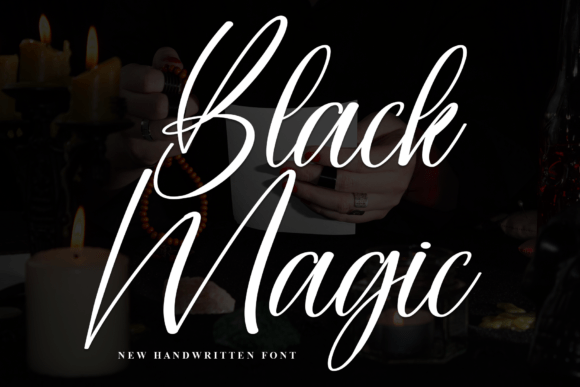
The Enchanting World of Black Magic Font
Have you ever been in the middle of a design project, and suddenly, you’re stuck on finding the perfect font? I recall a recent experience where I was working on a wedding invitation design, and my client requested a font that exuded elegance, sophistication, and a touch of magic. That’s when I stumbled upon the Black Magic font, a modern handwritten script font that has since become a staple in my design toolkit.
A First Impression: What Makes Black Magic Special
Black Magic is a stunning script font that masterfully blends flowing elegance with a bold, enchanting charm. Its tall, sweeping ascenders and fluid letter connections create a sense of motion and grace, making it perfect for designs that require a touch of sophistication. The font’s clean, sharp curves and delicate stroke contrast lend it a refined, luxurious feel, ideal for wedding invitations, brand signatures, quotes, and upscale product packaging.
Here’s what I love about Black Magic:
- ✨ Elegant and sophisticated design that’s perfect for high-end projects
- ✅ Excellent legibility, even at smaller font sizes
- ✅ Versatile and adaptable to various design contexts
And here are some minor quirks to consider:
- ⚠️ Some users might find the font’s bold style a bit overpowering for certain designs
- 🤔 Limited availability of language support (but suitable for most English-language projects)
According to its creators, Black Magic was inspired by the beauty of calligraphy and the need for a modern, sophisticated script font. The designers aimed to craft a font that would balance elegance with a touch of magic, making it perfect for designs that require a sense of wonder and enchantment.
| What type of projects is Black Magic best suited for? | Black Magic is ideal for wedding invitations, brand signatures, quotes, and upscale product packaging. |
| Is Black Magic a difficult font to use? | No, Black Magic is relatively easy to use, even for beginners. Its clean design and OpenType features make it accessible and versatile. |
| Does Black Magic support multiple languages? | Black Magic has limited language support, but it’s suitable for most English-language projects. |